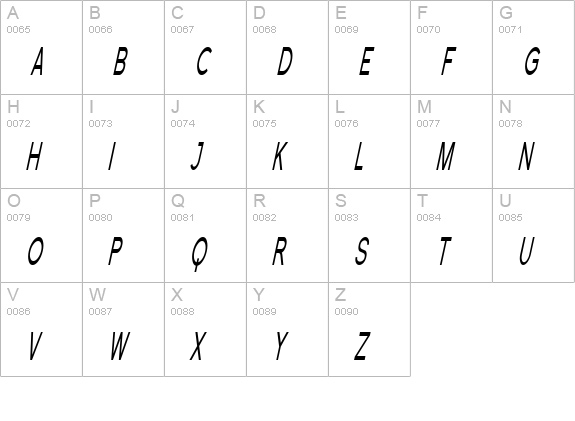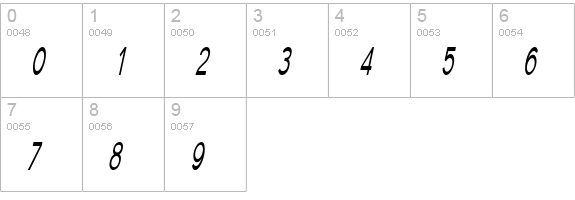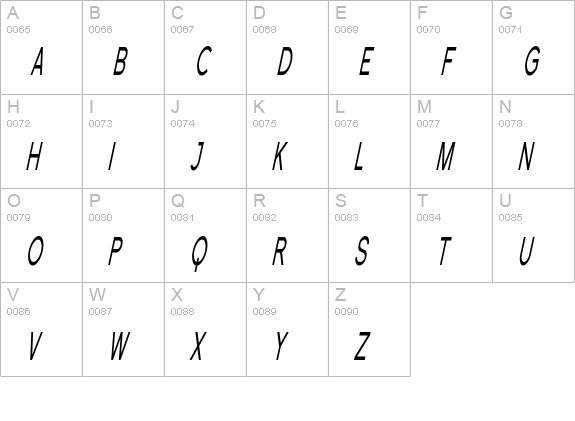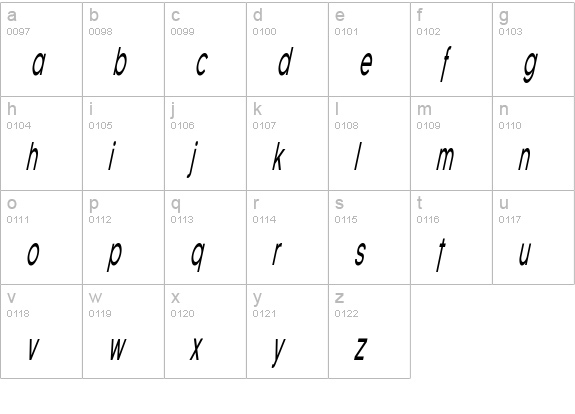
Florencesans Comp Italic Font Details
Florencesans Comp Italic is a distinctive, italic variant in the Florencesans typeface family \xE2\x80\x94 well suited to design and typography projects.
Florencesans Comp Italic font is a beautifully crafted typeface that exudes elegance and sophistication. Its slanted design adds a touch of modernity and flair to any project, making it perfect for use in branding, editorial design, and more. One of the best things about Florencesans Comp Italic font is that it is completely free to download. You can easily access this stunning typeface on FontsMarket.com, where you'll find a wide range of other high-quality fonts to enhance your creative projects. With its sleek and stylish look, Florencesans Comp Italic font is sure to make a statement and elevate your designs to the next level. Whether you're working on a website, poster, or logo, this versatile font will bring a touch of sophistication to your work. Download it today and see the difference it can make in your projects!